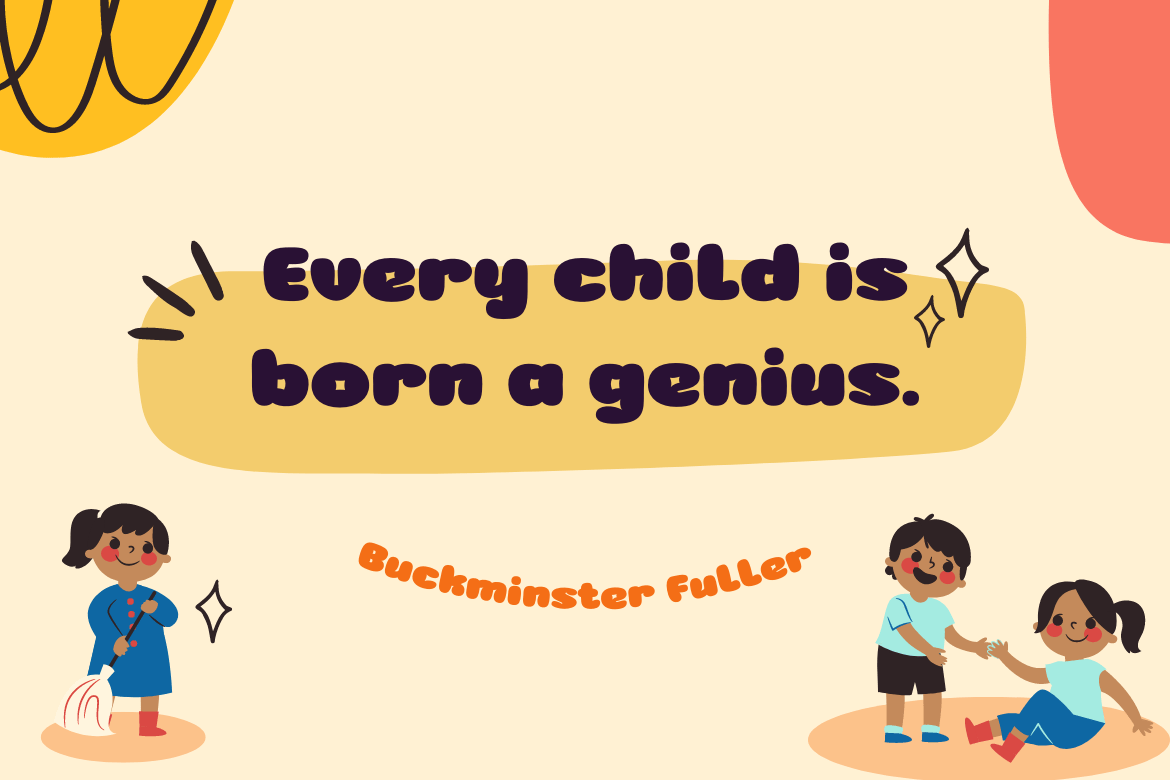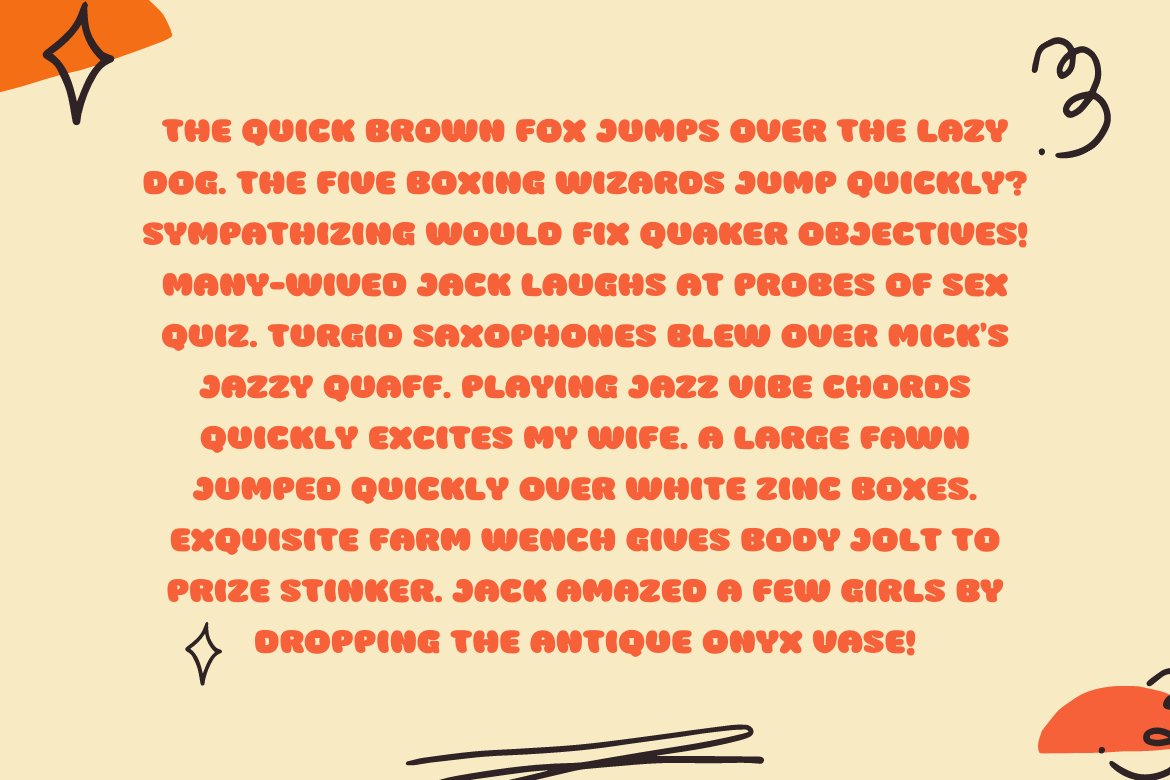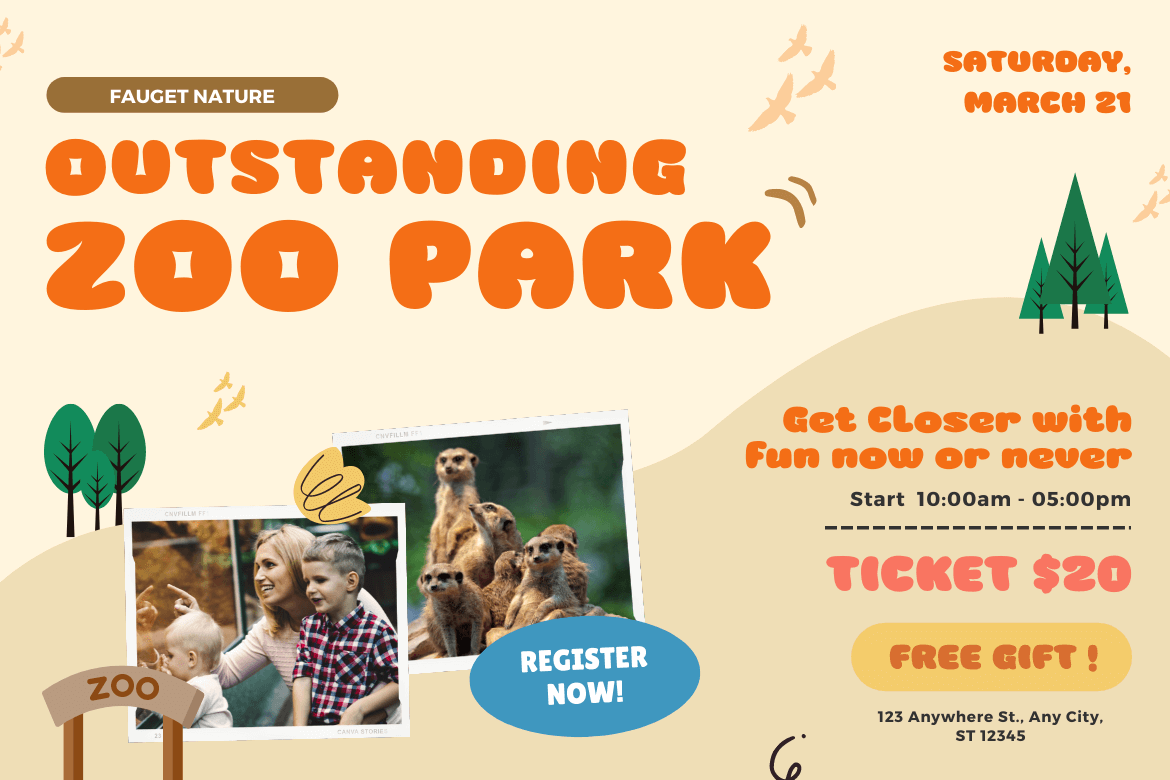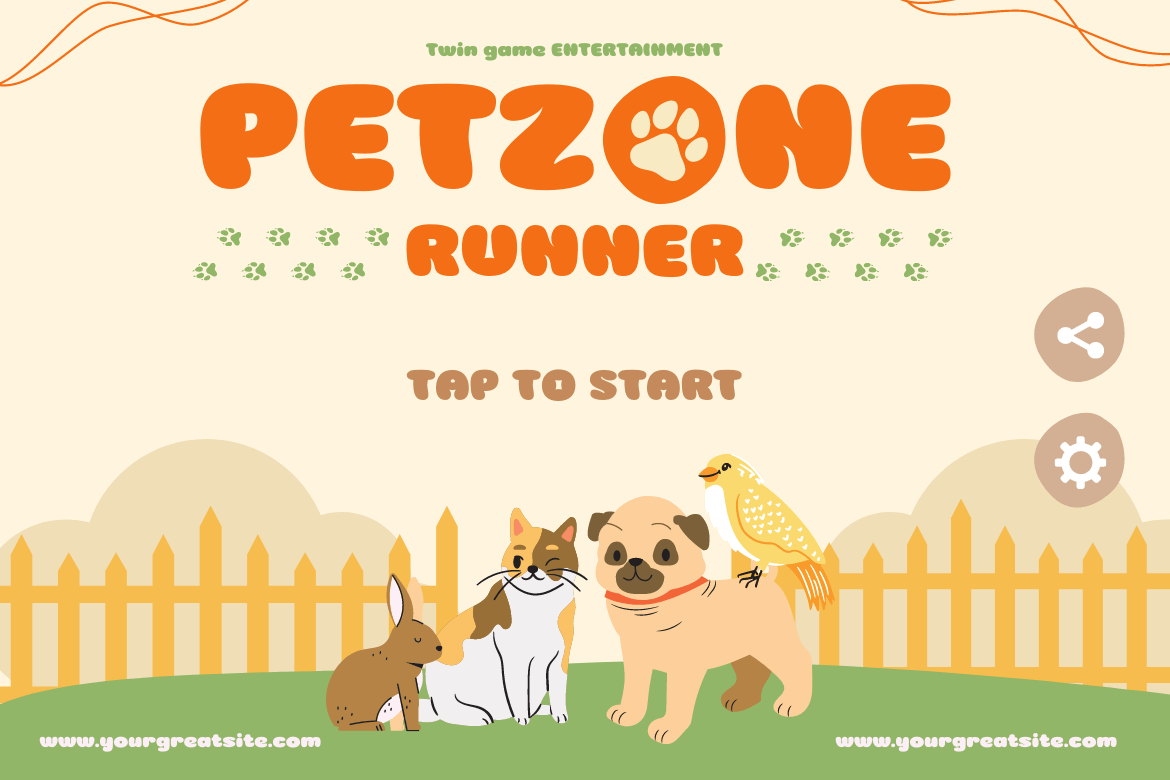
Ninces Font
Ninces Display Font
This is a brand new typeface that we created. It has a different style than the other fonts, and each character is more harmonious. We wanted to make a typeface that was clean and simple, but also warm and appealing. Each letter’s corner has a lovely curve, making the letters appear harmonious and pleasing to the eye. This design style is appropriate for any project, and one of our main goals is to make it simple for web and game designers to incorporate it into their work.